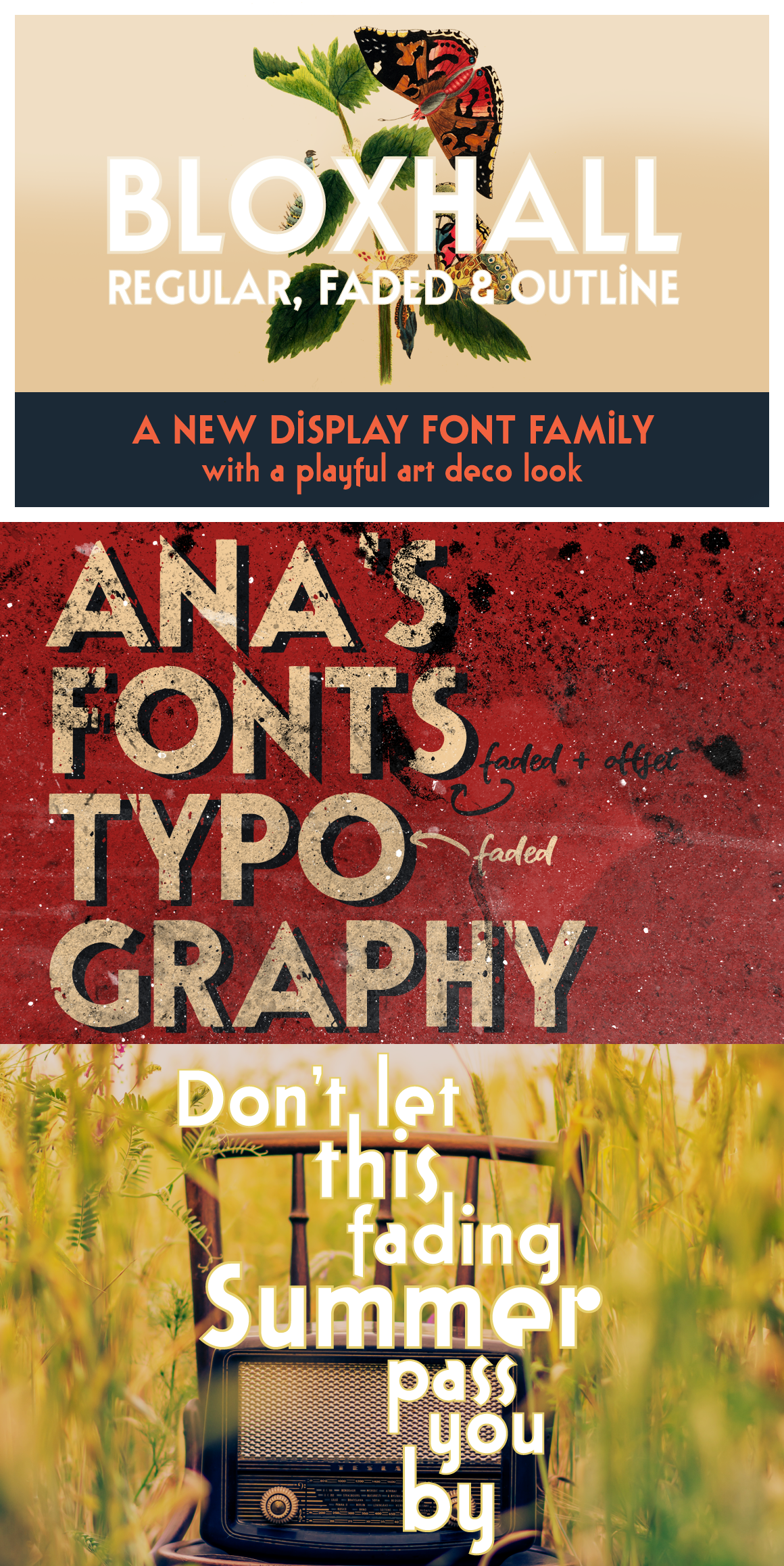
Bloxhall art deco sans serif font
Bloxhall is a sans serif display font with an art deco inspired style. This font family includes:
- A-Z, a-z, 0-9
- Accents
- Outline, faded and layered versions, with an extra offset variation to make layering super easy
Bloxhall's different variations and solid retro look, make it a perfect set for poster design, logotypes & branding, editorial design, titles, short phrases & slogans. Your creativity is the limit!